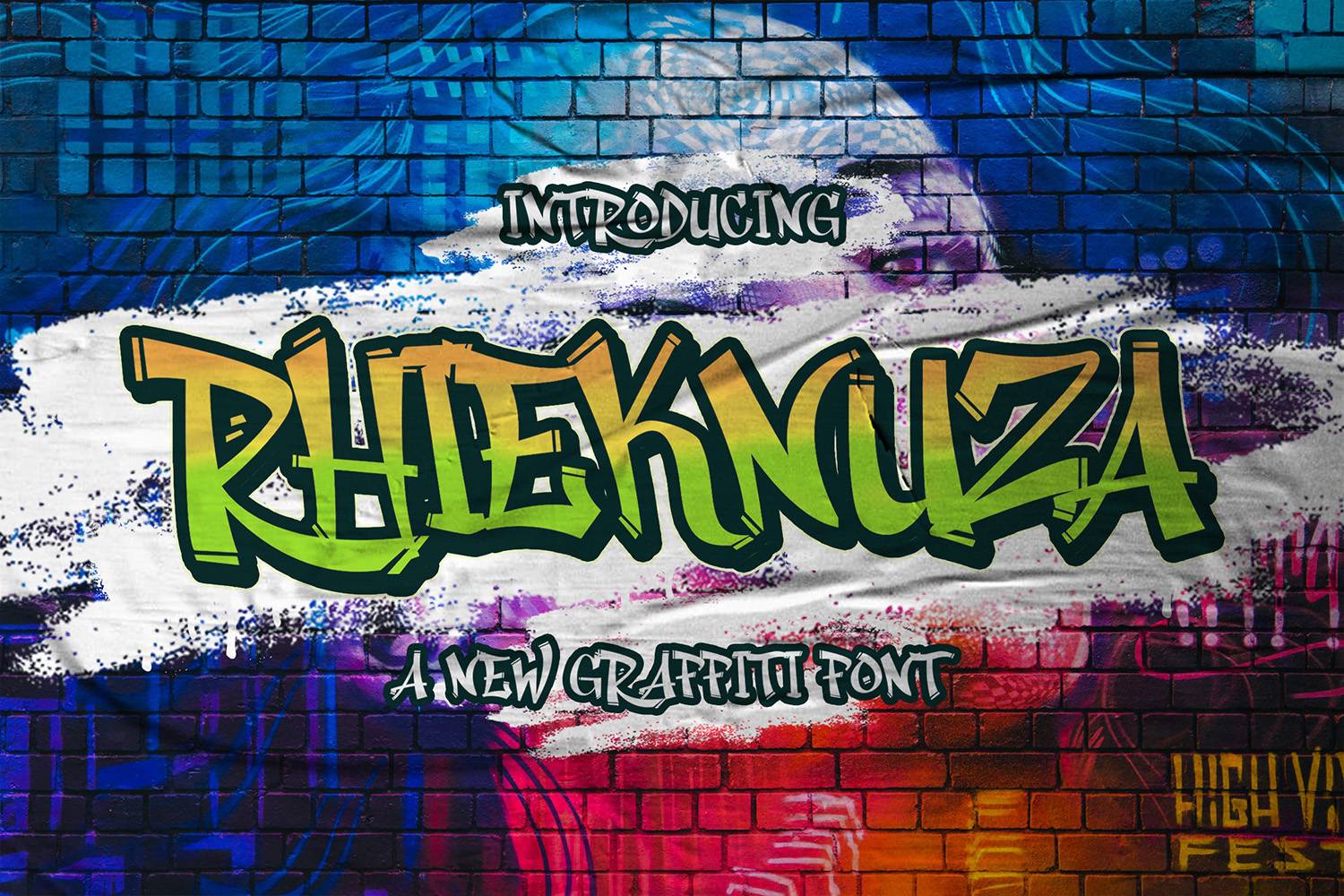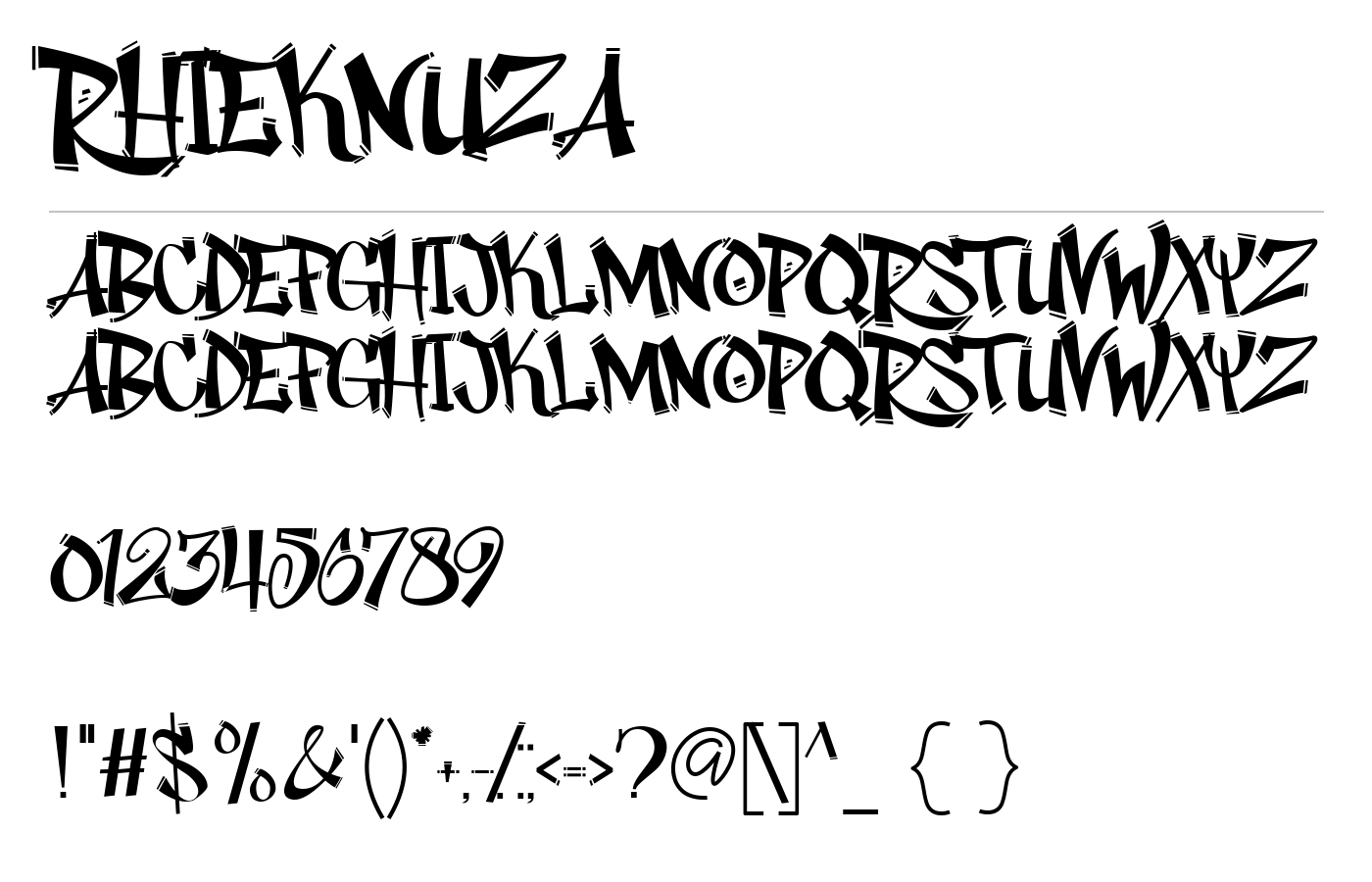
Rhieknuza is a bold, energetic display font with a graffiti-inspired style, characterized by sharp, irregular strokes and dynamic letterforms that convey a rebellious, urban vibe. Its uppercase-only design and distinctive ink-splatter details make it perfect for eye-catching headlines, posters, and creative branding that seeks to stand out with attitude and personality. This font works best where a playful yet edgy look is desired, adding a unique, handcrafted feel to projects.
Rhieknuza Font
About Rhieknuza Font
| Font family | Rhieknuza Font |
| Release date | 2020-03-26 |
| Designer | stringlabs |